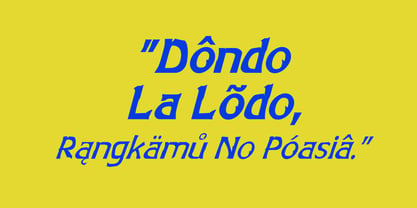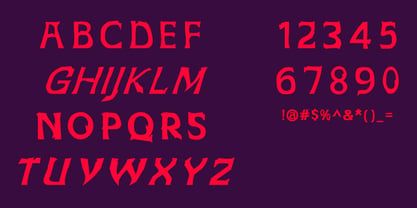
Pesona Mas Mas
by Asmoro Pabrik Huruf
The Pesona Mas Mas Font Family was designed by Dwi Asmoro and published by Asmoro Pabrik Huruf. Pesona Mas Mas contains 4 styles and family package options. More about this family
A typeface inspired by mystical, magical, and colossal themes. Designed to evoke a sense of tension while remaining elegant, it brings a magical and mysterious atmosphere to your designs. Perfect for projects that demand an otherworldly, dramatic, yet sophisticated touch.